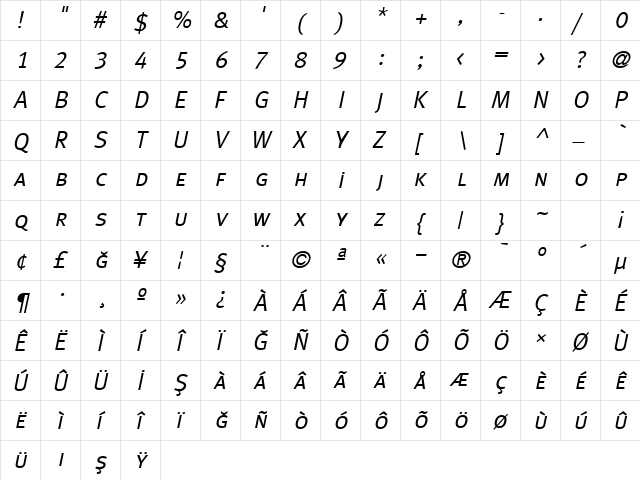
Meta Caps Italic
Design Context for Meta Caps Typeface
Meta Caps takes a measured approach to typography — its balanced proportions and neutral character make it a reliable workhorse for both digital and print work. The dynamic lean of this cut emphasises speed and emphasis in any layout.